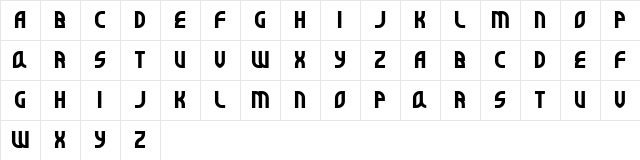
SuperBefok Regular
Design Context for SuperBefok Typeface
SuperBefok is a composed and adaptable typeface that performs quietly and consistently across a wide range of design contexts.